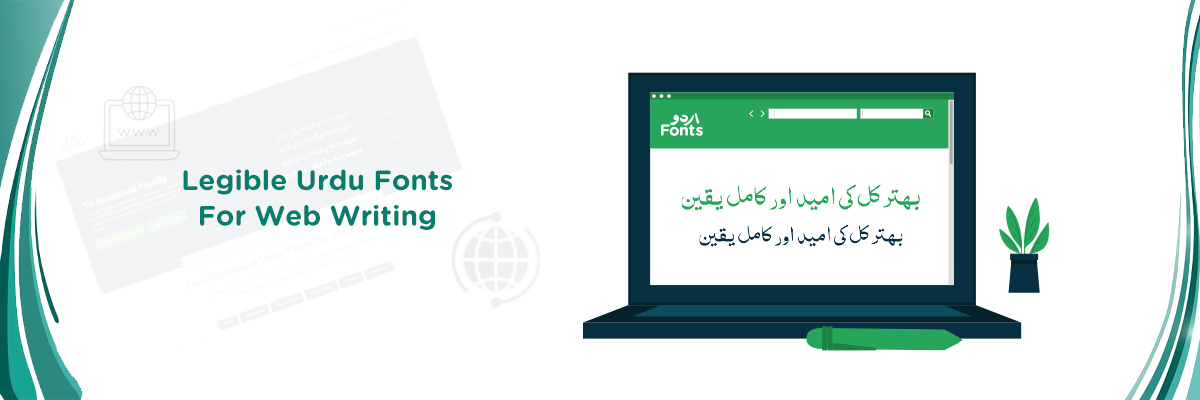
Have you ever thought why some Urdu websites capture our attention immediately and become our priority for reading? No doubt, it might be because of the overall layout of that particular site or the graphics used to develop it. However, another thing that plays a huge role in your website is the selection of Legible Urdu fonts while designing it. The first and foremost thing while selecting Urdu fonts is to choose those which offer high readability. There are lots of Urdu fonts of different styles available today, such as Naskh, Nastaliq, Bold fonts, and much more. However, the tricky part is which one would be the best fit for your site. It totally depends on your target audience and what they would like to see. Below, we will discuss in detail how legible Urdu fonts are important for web writing. So, join us to learn more about it. Moreover, you can further enhance your creativity by learning how can you leverage Urdu Font for Designing Logos.
To engage a lot of users with your website, it is very significant to design it in the best way possible. Whether it be using the best visuals, engaging graphics, or interesting Urdu fonts for text writing, you cannot ignore any aspect for the perfect outcome. When it comes to choosing Legible Urdu fonts for web writing, there are so many belonging to different font families. However, some people feel difficulty in writing in Urdu, for that there are many online Urdu keyboards available where you can just type in English and it offers Urdu test such as Online Urdu Editor. Let’s have a look at different font types that will help you to improve user engagement:
| Font Types | Purpose | Description |
|---|---|---|
| Naskh fonts | Readable body text | Straightforward characters for easy reading in body text. |
| Nastaliq fonts | Readable body text with style | Artistic script perfect for stylish body text with a touch of flair. |
| Bold fonts | Titles & headings | Stands out for titles, headings, and important information. |
| Decorative fonts | Website layout | Adds a unique touch to website layout elements, use sparingly. |
| Sans-serif fonts | Footers, Description | Simple design ideal for footers, disclaimers, and short descriptions. |
| Modern fonts | Engaging content/graphics | Eye-catching for headers, graphics, or content that needs to pop. |
At present, where technology is ever-evolving, developing a site that is both visually attractive as well as easy to navigate is very important. In Urdu web writing, this thing becomes even more crucial. Let’s see why selecting legible Urdu fonts is essential for you:
A site with well-selected Urdu fonts develops a positive user experience. People feel satisfied and engaged, inspiring them to discover further.
Readable fonts make sure your visitors can conveniently read your website’s content. Choosing wrong fonts leads to irritation and as a result, readers will leave your site.
Urdu fonts you select plays a huge part in your website’s aesthetic. Readable fonts that convey your brand message develops a reliable and honest image.
When readers can easily read your site content, they are more expected to take the chosen action, whether it is contacting you, registering for a newsletter, or buying something.
Legible, clear Urdu fonts make your site’s content more reachable for everyone. This results in the maximum engagement with your site’s message. This way not only more people visit your site but due to the readability, the choose to stay.
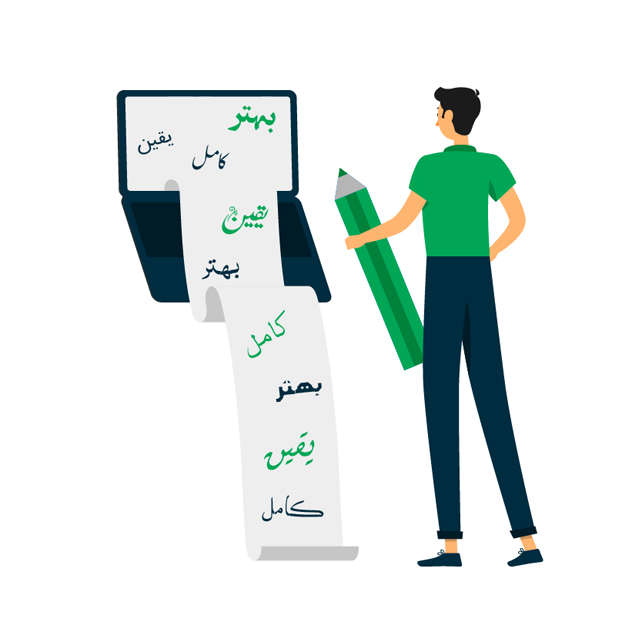
In the ever-changing world of web writing, the major thing is clarity. If you want to create a website that not just looks attractive but also improves engagement and develops an optimistic user experience, use Legible Urdu fonts offering high readability. Keep in mind that the more readable the fonts are, the more engaged the readers will be. Furthermore, using clear fonts will also help to convey the message to your target audience. I hope that the above guide will be helpful for you.